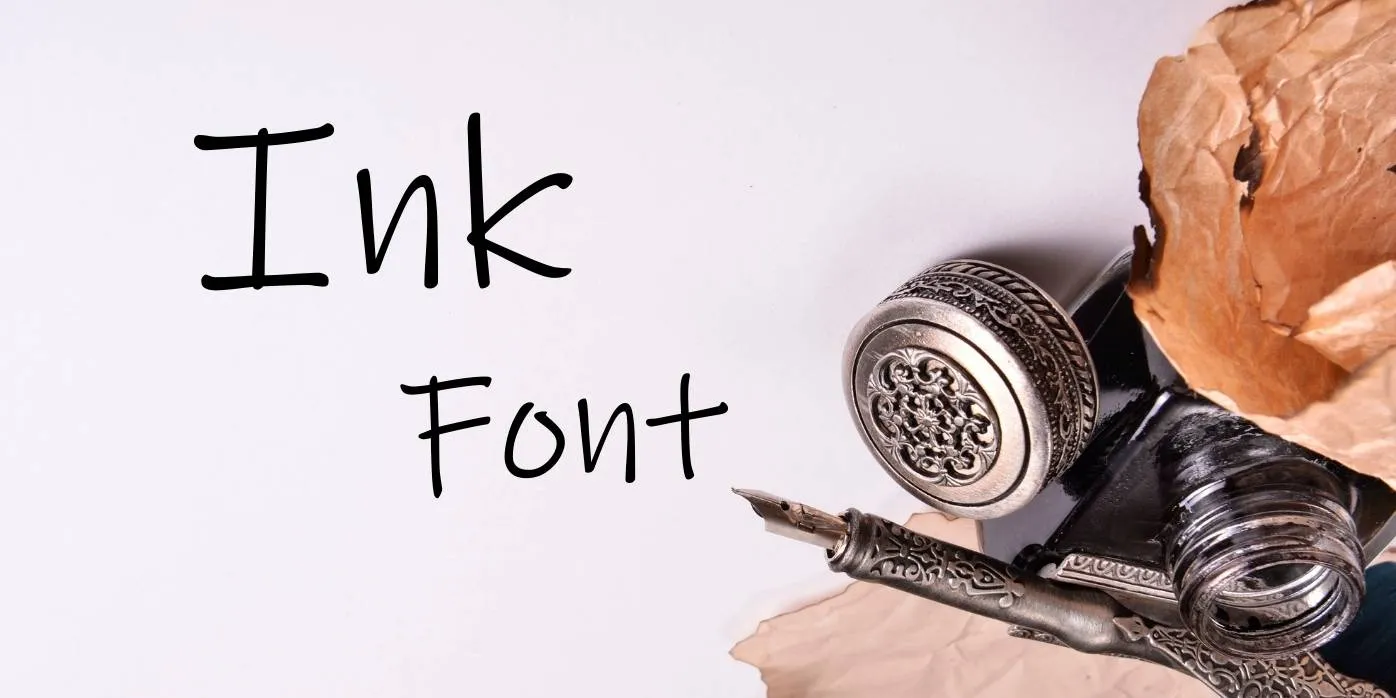
Ink Font
Here, We present a very amazing and stylish font known by the name Ink Font. This attractive font belongs to the Handwritten typeface. This cute typeface was designed by very famous designer Richard William. This stunning font consists of unique weights.
These classic weights are Bold, condensed, italic, and so on. These weights make it powerful for various designs. Its keen features make its letters arranged and equally space. This is best for characters and makes these characters best and most attractive for different designs.
Frequently this cute typeface is best for display projects as well as printing projects. For various graphics designs, you need to use its online tool generator.